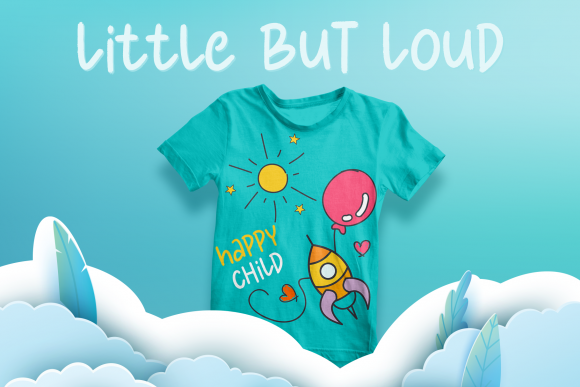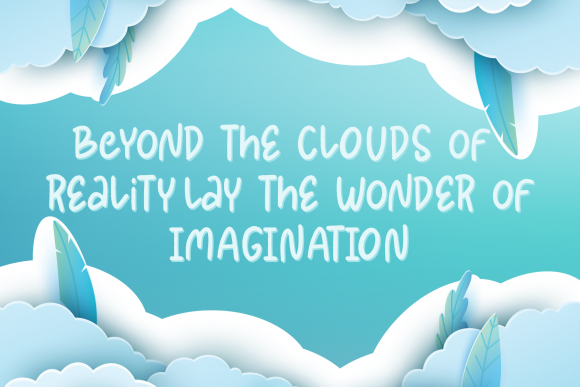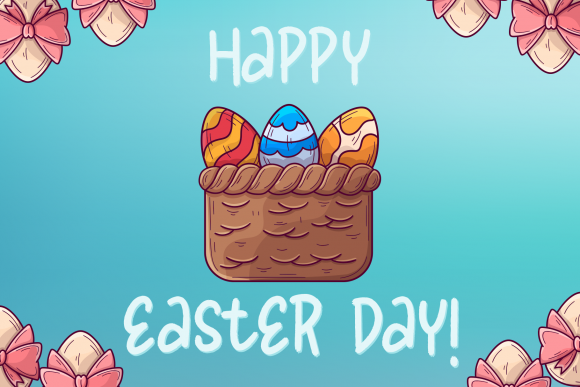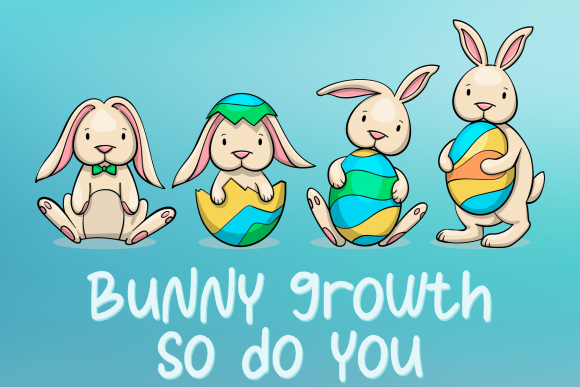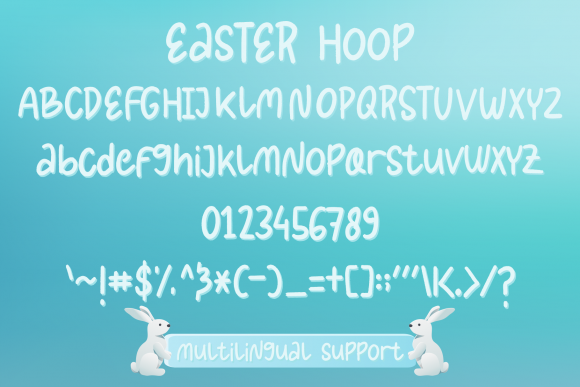
Easter Hoop Font: The Perfect Addition to Your Design Arsenal
Are you looking for a font that can add a touch of fun and whimsy to your designs? Look no further than the Easter Hoop font! This crafty display font is perfect for a wide range of design projects, from digital designs to greeting cards, and is sure to bring a smile to your audience’s faces.
What is Easter Hoop Font?
Easter Hoop is a fun and crafty display font that is characterized by its tall and simple design. The font’s clean lines and minimalist aesthetic make it incredibly versatile, allowing it to be used in a variety of different contexts. Whether you’re designing a digital graphic, creating a presentation, or making a greeting card, Easter Hoop is the perfect choice.
Key Features of Easter Hoop Font
- Tall and Simple Design: The Easter Hoop font features a tall and simple design that is both elegant and eye-catching.
- Crafty and Whimsical: The font’s crafty and whimsical aesthetic makes it perfect for designs that require a touch of personality and fun.
- Versatile: Easter Hoop is incredibly versatile, and can be used in a wide range of design projects, from digital designs to greeting cards.
- Easy to Read: The font’s clean lines and simple design make it easy to read, even at small sizes.
Uses for Easter Hoop Font
Easter Hoop font is perfect for a wide range of design projects, including:
- Digital Designs: Use Easter Hoop to add a touch of fun and personality to your digital designs, such as social media graphics, blog posts, and website headers.
- Presentations: Add a touch of whimsy to your presentations with Easter Hoop, perfect for titles, headings, and emphasis text.
- Greeting Cards: Use Easter Hoop to create fun and festive greeting cards for Easter, birthdays, and other special occasions.
- Crafting Projects: Easter Hoop is perfect for crafters, and can be used to create fun and personalized projects, such as scrapbooking, DIY signs, and handmade cards.
Tips for Using Easter Hoop Font
Here are a few tips for using Easter Hoop font in your designs:
- Use it as a Display Font: Easter Hoop is perfect for use as a display font, and can be used to add emphasis and personality to your designs.
- Pair it with Other Fonts: Easter Hoop pairs well with a variety of other fonts, and can be used in combination to create visually interesting designs.
- Experiment with Colors: Easter Hoop looks great in a variety of different colors, so don’t be afraid to experiment and find the perfect hue for your design.
Easter Hoop font is a fun and crafty display font that is perfect for a wide range of design projects. Its tall and simple design makes it incredibly versatile, and its whimsical aesthetic adds a touch of personality to any design. Whether you’re a designer, crafter, or DIY enthusiast, Easter Hoop is sure to become a favorite in your design arsenal.
- What type of font is Easter Hoop? Easter Hoop is a display font, perfect for use in titles, headings, and emphasis text.